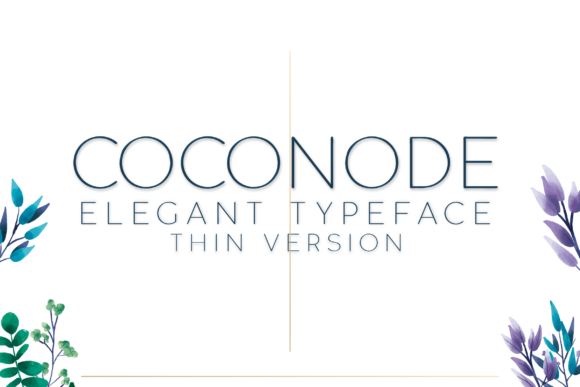
Introducing Coconode Thin - A Sans Serif Font with Endless Creative Possibilities
In a world of digital storytelling, your choice of font matters. Coconode Thin, a sans serif masterpiece crafted by Huntype, is not just a font; it's an artistic gateway that empowers you to unlock your creative potential. Experience the fusion of perfect readability and a clean, modernist design that elevates every visual creation.
Coconode Thin: Where Readability and Aesthetics Intersect
With Coconode Thin, readability takes center stage. Its carefully crafted letterforms ensure effortless comprehension, making it an ideal choice for texts, headlines, and designs where clarity is paramount. Whether you're crafting a compelling landing page, an informative brochure, or an eye-catching social media post, Coconode Thin ensures your message is delivered with crystal clarity.
A Legacy of Elegance and Innovation
Huntype, the creative force behind Coconode Thin, has a long-standing reputation for excellence in the world of typography. Their fonts are not just collections of letters; they're carefully curated works of art that reflect the passion and expertise of their talented designers. With Coconode Thin, they have once again surpassed expectations, creating a font that combines elegance and innovation in perfect harmony.
Infinite Creative Applications: Unleash Your Imagination
Coconode Thin's versatility knows no bounds. Its clean and minimalist style blends seamlessly with any design aesthetic, making it the perfect choice for a wide range of creative projects:
- Elevate your website's design with captivating headlines and body text that command attention without overwhelming the reader.
- Craft logos and branding elements that exude professionalism and sophistication, leaving a lasting impression on your target audience.
- Create social media graphics that pop with style and personality, ensuring your posts stand out in the crowded digital landscape.
- Design brochures, flyers, and other marketing materials that speak volumes about your brand's identity and values.